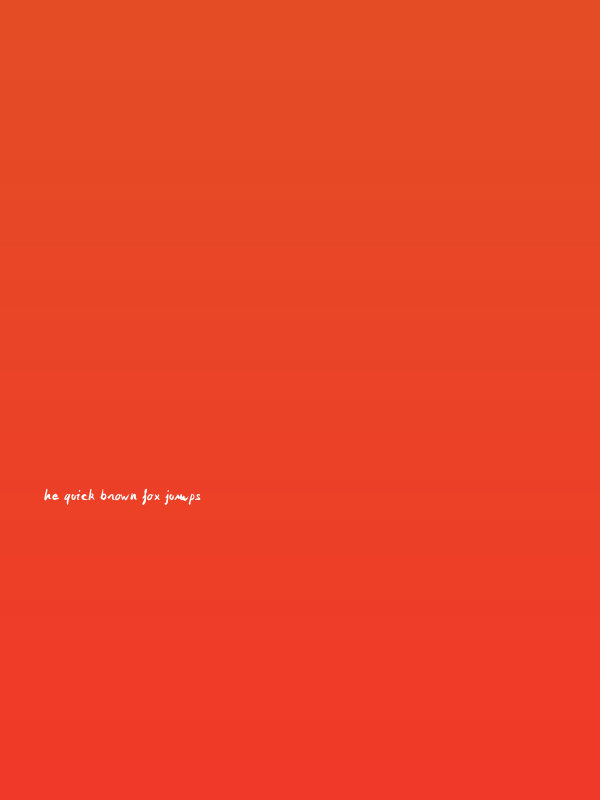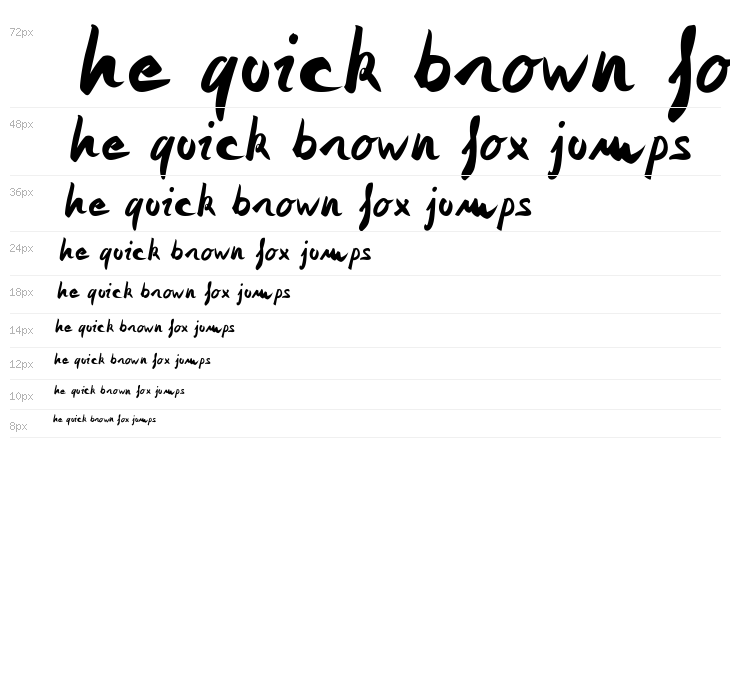
Monika Monika Font
Monika Monika Description
This font exhibits a lively and dynamic handwritten style, characterized by its fluid and organic letterforms. The strokes are bold and expressive, with a noticeable variation in thickness that adds a sense of movement and energy. The letters are slightly slanted, enhancing the informal and personal feel of the typeface. The overall appearance is both artistic and approachable, making it suitable for creative and casual applications. The unique shapes of the characters give it a distinctive personality, perfect for projects that require a touch of individuality and flair.
| Proposed Projects | Ideal for greeting cards, personal branding, artistic posters, and creative invitations. |